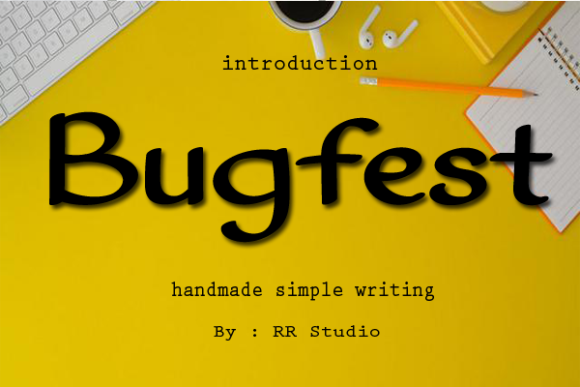
Bugfest Font
Indulge in the enchanting allure of Bugfest Font, a sans serif masterpiece that breathes life into your designs. Its crisp, clean lines dance across the page, exuding an air of timeless elegance.
Crafted by the visionary minds at RR Studio, Bugfest is not just a font; it's an artistic tool that empowers you to elevate your designs to new heights. Dive into a world of endless creative possibilities, where Bugfest transforms your words into captivating logos that resonate with your audience.
Whether you're crafting invitations that whisper romance or headlines that demand attention, Bugfest is your perfect companion. Its wide range of applications extends beyond the boundaries of greeting cards, making it an indispensable asset for any designer's arsenal.
But Bugfest is more than just a versatile workhorse; it's a font that stirs emotions. Its clean lines convey a sense of sophistication and refinement, while its subtle curves hint at a touch of playfulness. With Bugfest, your designs will not only look stunning but also leave a lasting impression.
Embrace the allure of Bugfest Font and unlock a world of creative possibilities. Its timeless elegance and versatility will captivate your audience and leave them craving more. Experience the magic of Bugfest today and let your designs soar to new heights of sophistication and beauty.